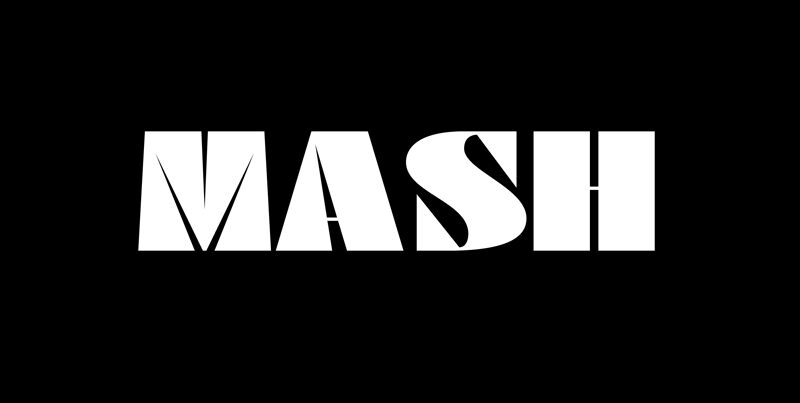
Mash font family by Leonhard Katschner has 4 font styles that fit perfectly together to form one dense and impactful font family. Each font included in this bundle has its own individual flair while maintaining a consistent contemporary style throughout. Its aesthetic is stylish and commanding, making it great for creative work that requires attention.
Mash is best suited for advertising, presentation, and informative graphics, but also works great in book covers, posters, editorial design, web design, and branding. It can also be used for interesting business cards and brochures, especially the ones with more text than usual.